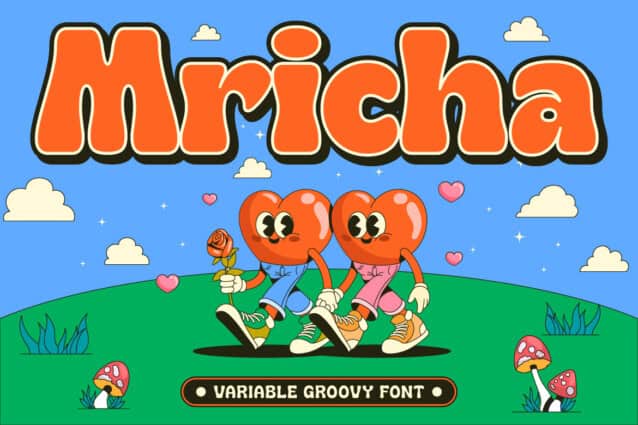
Groovy Mricha Font
Groovy Mricha font is a unique Variable Groovy Font that comes in 6 different weights, ranging from Extra Light to Bold. Carefully crafted, this font combines the retro style of 90s cartoons and comics with a modern twist. With added ink traps, Groovy Mricha font has a distinctive and visually appealing look.